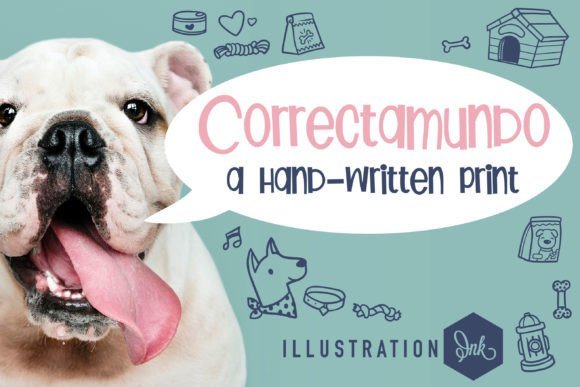
Introduction to Correctamundo Font
This hand-written sans serif is youthful and whimsical.
It is perfect for a wide spectrum of applications such as greeting cards, headlines, and many more Add it confidently to your projects, and you will love the results.
Key Features of Correctamundo Font
Why Choose Correctamundo Font?
Correctamundo Font offers exceptional quality and versatility, making it a valuable addition to your design toolkit. Whether you’re creating for personal projects or commercial use, Correctamundo Font delivers professional results.